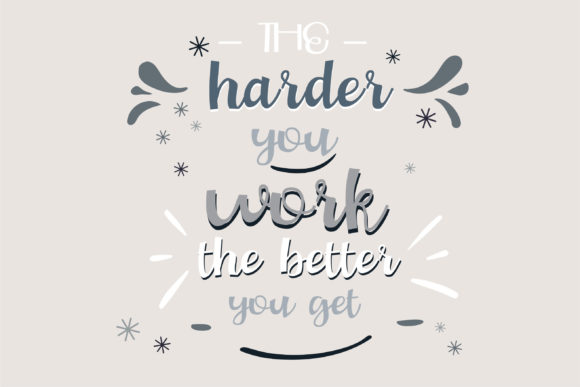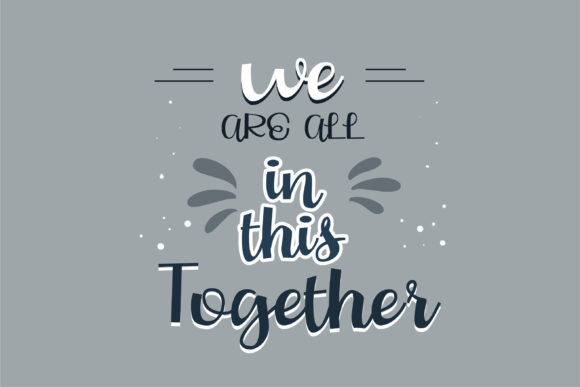
Rapscillion Font
db-ku.com - Script & Handwritten -- Rapscillion is an enchanting handwritten font. This versatile script font has a wide spectrum of applications ranging from greeting cards to headlines and is guaranteed to add a romantic feel to your next project.